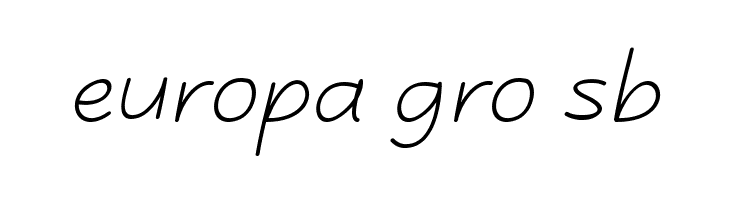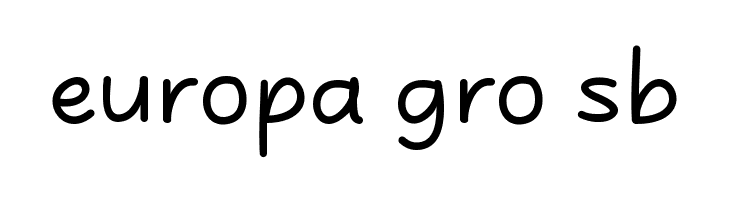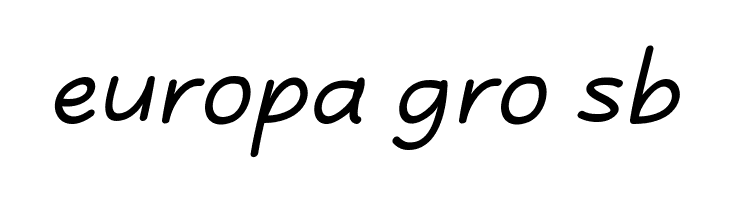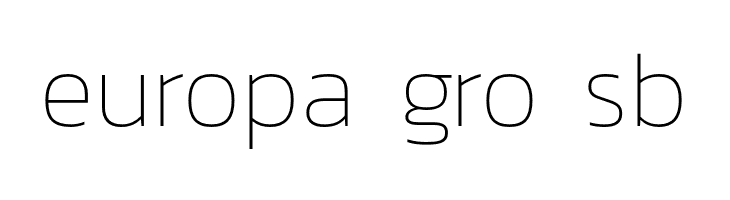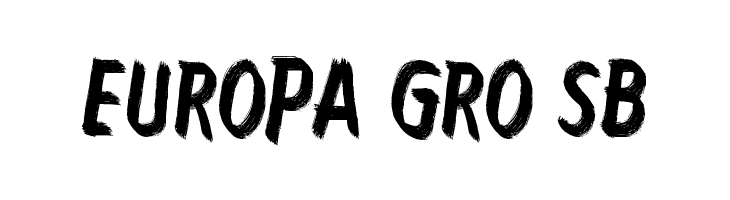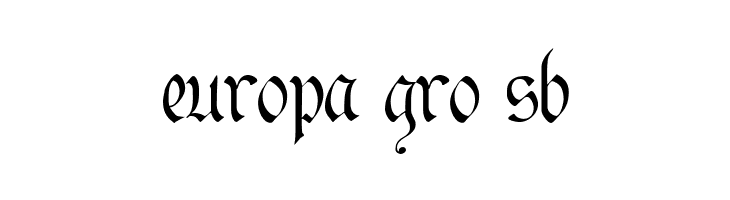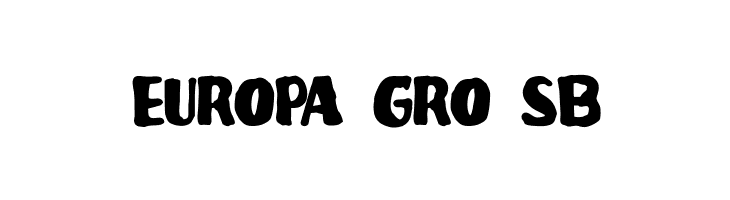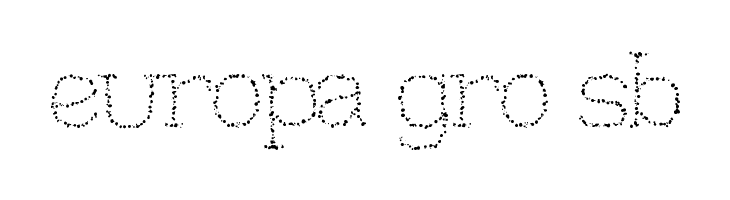
A modern, semi-bold sans-serif font with clean lines and balanced proportions.
A modern, thin sans-serif font with a geometric and minimalist design.
A bold, playful font with thick, rounded strokes and a hand-drawn feel.
A classic blackletter font with ornate, gothic styling and dramatic flourishes.
A dotted, decorative font with a playful yet structured style.
A bold, brush-style font with textured, dynamic strokes.
A clean, handwritten-style font with rounded edges and consistent strokes.
A playful, rounded font with smooth curves and a friendly appearance.
A bold, italic font with a casual and dynamic style.
A sleek, italicized font with a handwritten feel and medium contrast.